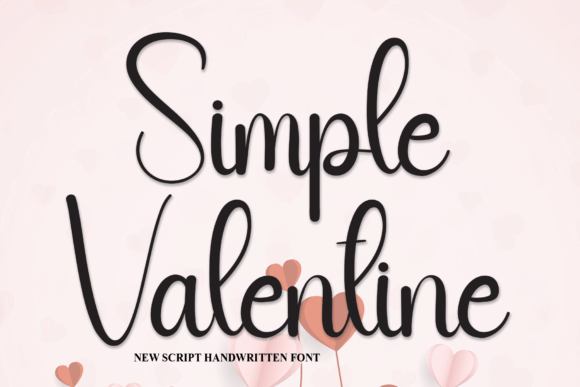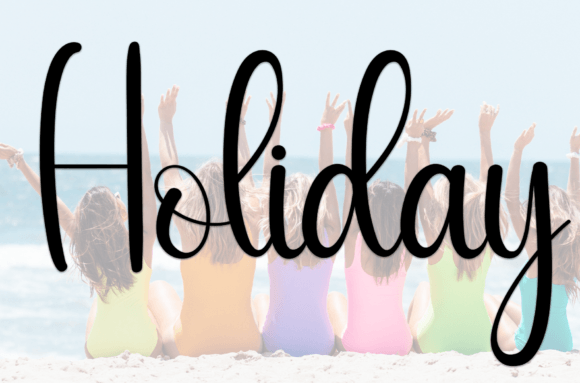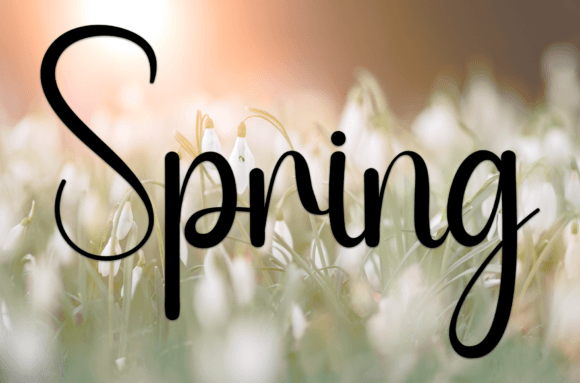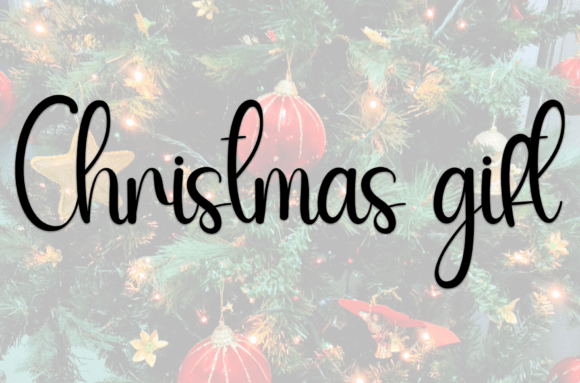
Simple Valentine Font
About Simple Valentine Font
A Sweet and Friendly Handwritten Font
The Simple Valentine Font is a sweet and friendly handwritten typeface that adds a charming and personal touch to any design. Its cute and relaxed style makes it perfect for a wide range of projects that require a fun and unique touch. Whether you’re designing wedding invitations, greeting cards, or any other creative design, the Simple Valentine Font ensures your projects feel heartfelt and inviting.
Perfect for Wedding Invitations and Special Events
If you’re working on wedding invitations, thank you cards, or other special event stationery, the Simple Valentine Font is a perfect choice. Its charming script brings an elegant yet relaxed feel to your designs, making it ideal for both formal and informal events. Whether you’re planning a wedding, baby shower, or birthday party, this font will give your invitations a personal and memorable look.
Ideal for Cards and Personalized Messages
The Simple Valentine Font is also great for designing greeting cards, thank you notes, and holiday messages. Its playful yet elegant design adds a touch of warmth and charm to any occasion. Whether you’re designing for Christmas, Valentine’s Day, or a birthday, this font brings a unique, handwritten feel to your messages, making them feel special and personal.
Great for Fun and Creative Projects
Beyond invitations and cards, the Simple Valentine Font is ideal for a variety of creative projects. Whether you’re designing logos, business cards, posters, or social media graphics, this font adds a fun, friendly vibe to your designs. Its simple, relaxed style makes it perfect for branding, product packaging, and children’s books—anything that needs a charming, welcoming look.
Versatile for Multiple Design Applications
The Simple Valentine Font is highly versatile and can be used across various types of design work. Whether you’re creating flyers, website headers, advertisements, or stationery, this font adapts to different contexts and gives your work a playful, welcoming feel. It’s perfect for both personal and business projects, making it ideal for anyone looking for a lighthearted, creative touch.
Cute, Relaxed, and Legible
Despite its cute and relaxed design, the Simple Valentine Font remains legible and easy to use. Its smooth curves and simple structure ensure that your designs are not only beautiful but also easy to read. Whether you’re using it for headlines, captions, or small blocks of text, this font offers clarity while maintaining its charming, handwritten style.
Add a Fun and Personal Touch to Your Designs
If you’re looking for a friendly and playful handwritten font to add a personal touch to your designs, the Simple Valentine Font is the perfect choice. Whether you’re working on wedding invitations, greeting cards, logos, or social media posts, this font brings warmth, elegance, and fun to your projects. Let your designs stand out with the Simple Valentine Font and make every project feel special and unique.